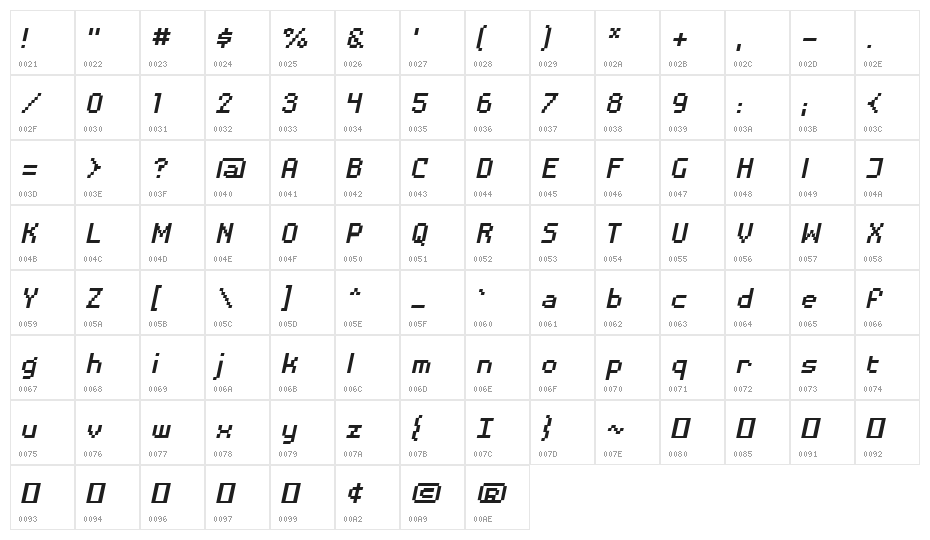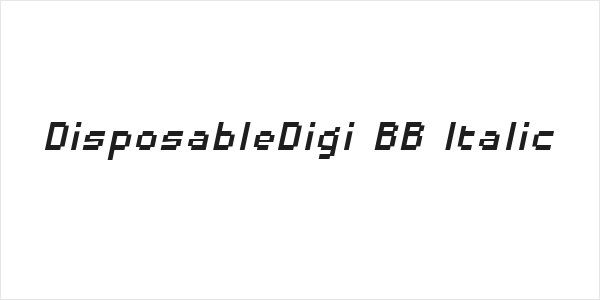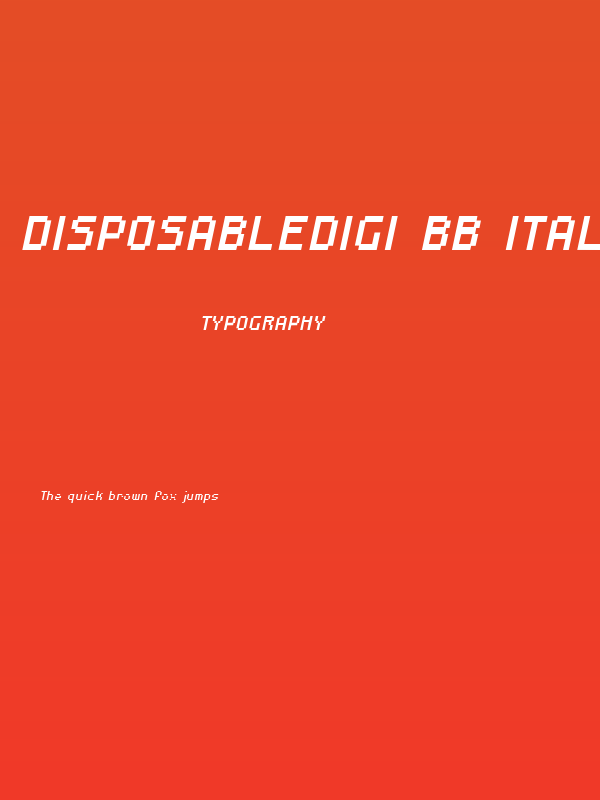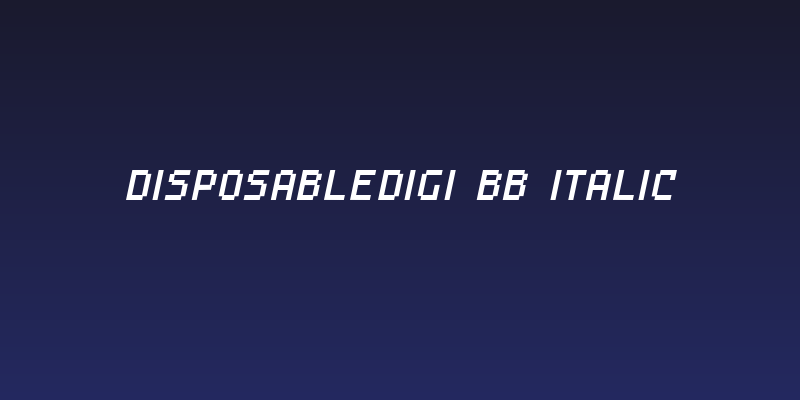
DisposableDigi BB Italic Font
DisposableDigi BB Italic Description
This font features a pixelated, digital style reminiscent of early computer displays and video games. The characters are constructed with sharp, blocky edges and a consistent grid-like pattern, giving it a distinctly retro and technological appearance. The italic slant adds a dynamic feel, enhancing its futuristic and energetic vibe. Uppercase and lowercase letters maintain uniformity in style, while numbers and special characters are clearly legible, adhering to the same pixelated structure. This font is ideal for projects that require a nostalgic or tech-inspired aesthetic.
| Overall Style | Retro, Futuristic |
| Use Case | Headlines, Logos, Digital displays |
| Proposed Projects | Ideal for video game design, tech-themed posters, digital art, and retro-style branding. |